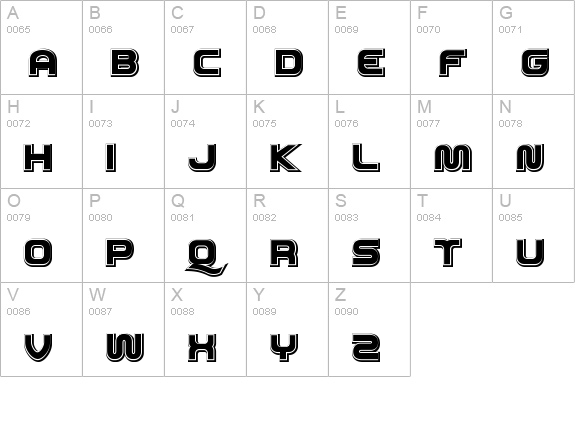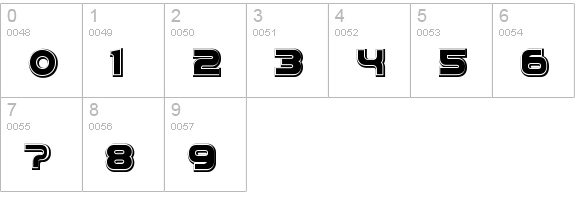
RolandTR909 Font Details
The RolandTR909 font is a versatile and modern typeface that exudes a sense of energy and creativity. With its bold lines and futuristic design, this font is perfect for making a statement in any project. Whether you're working on a poster, logo, or branding materials, RolandTR909 will add a touch of sophistication and style. Best of all, the RolandTR909 font is available for free download at FontsMarket.com. Simply visit the website to access this incredible font and start incorporating it into your designs today. Don't miss out on this opportunity to enhance your projects with the RolandTR909 font's unique and eye-catching aesthetic.